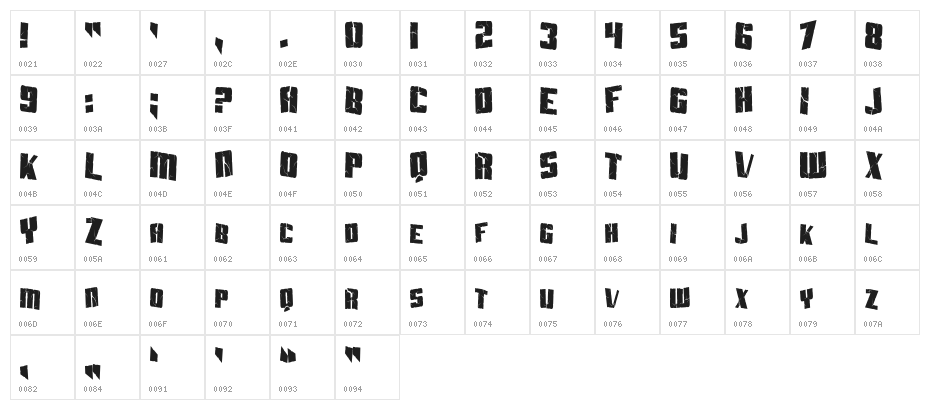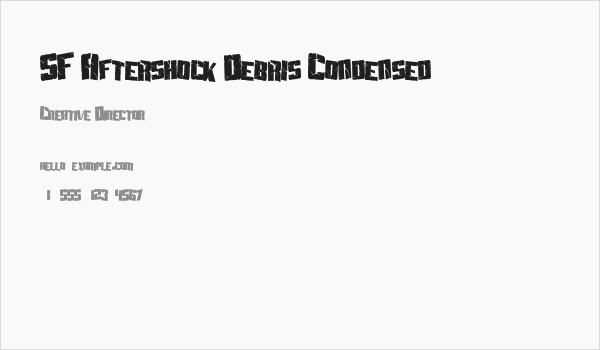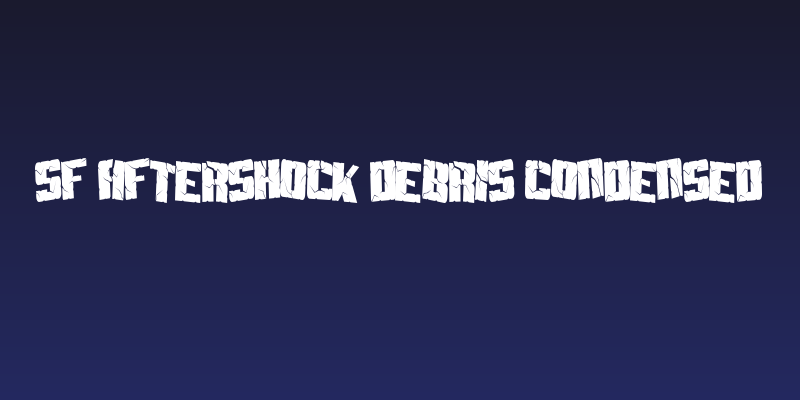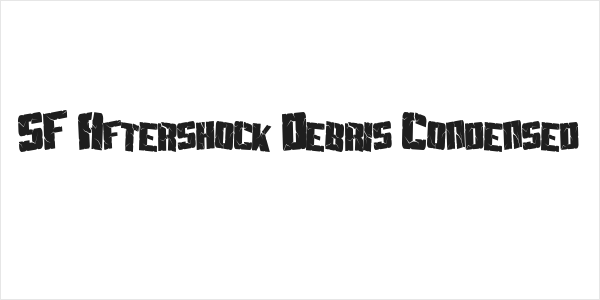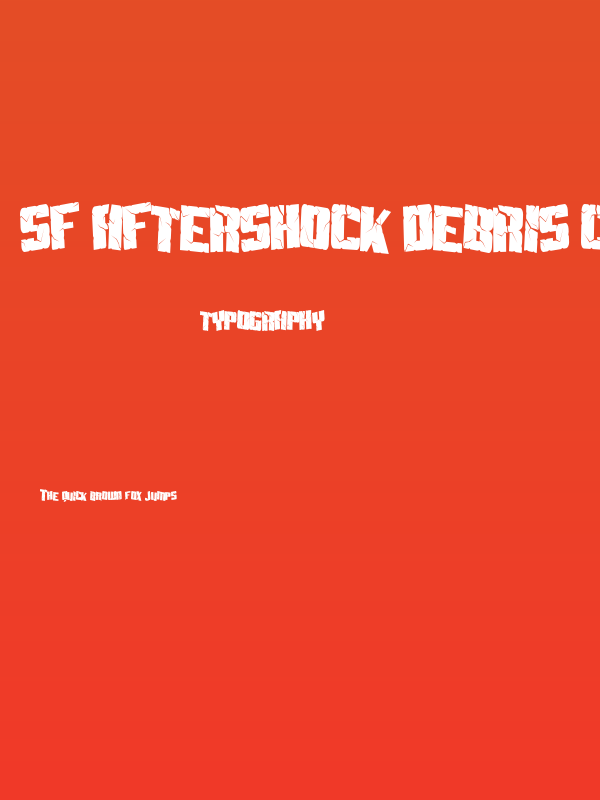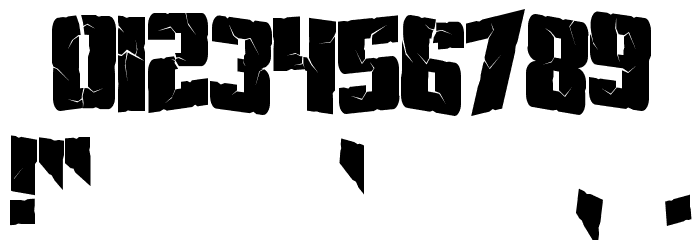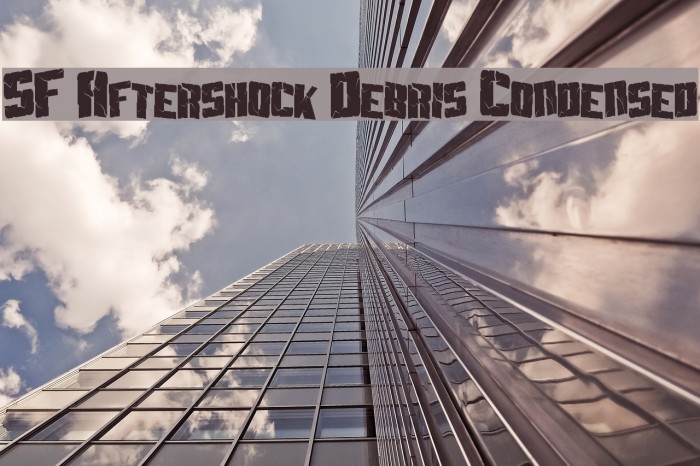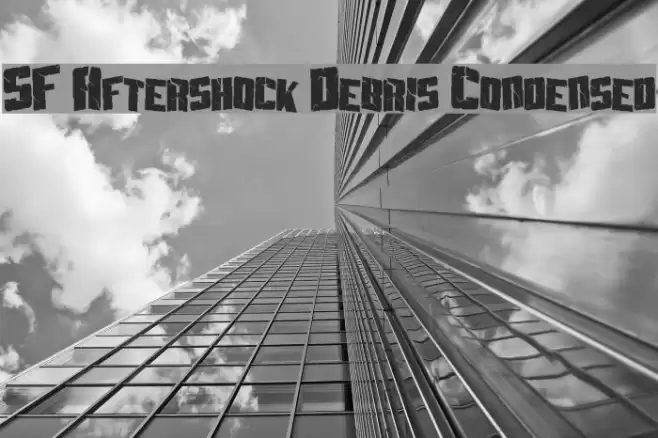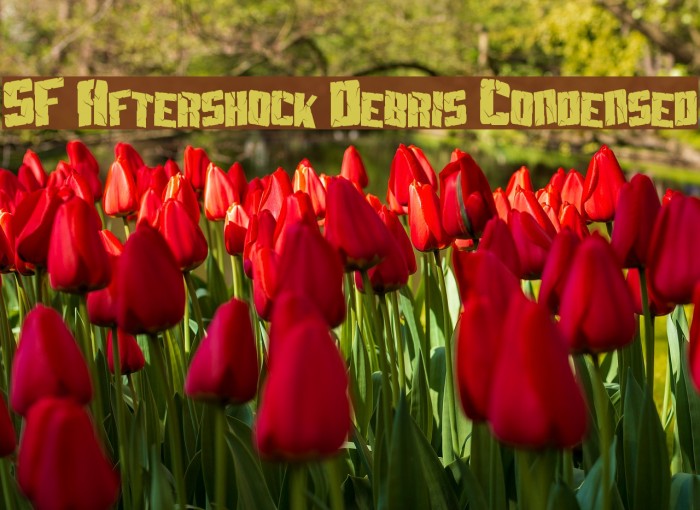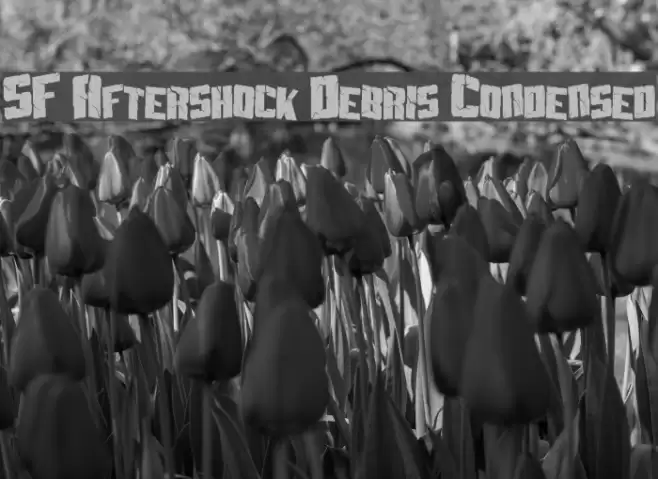
SF Aftershock Debris Condensed Font
This font features a bold, fragmented design that resembles shattered debris, giving it a rugged and distressed appearance. The characters are heavily stylized with jagged edges and irregular shapes, creating a sense of chaos and movement. Despite its fragmented look, the font maintains legibility, making it suitable for impactful and attention-grabbing designs. The uppercase and lowercase letters, along with numbers and special characters, all share this unique, broken aesthetic, making it a cohesive choice for projects that require a dramatic and edgy look.
| Proposed Projects | Ideal for movie posters, video game titles, event flyers, and any design that requires a dramatic, edgy look. |